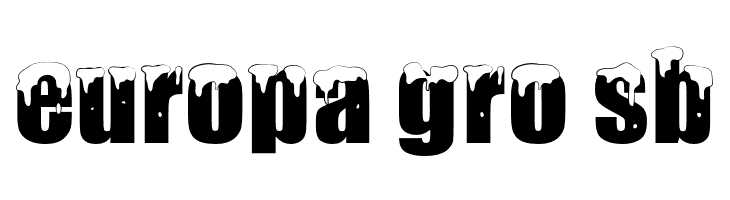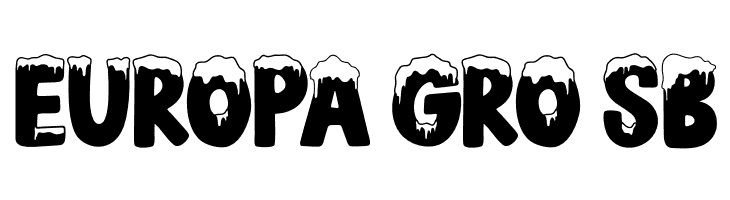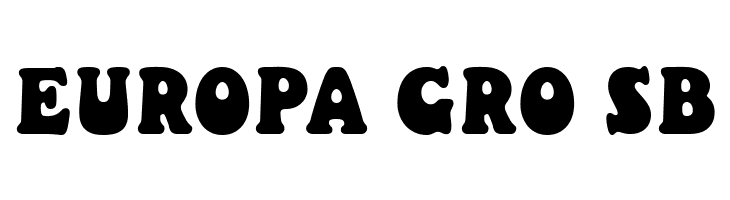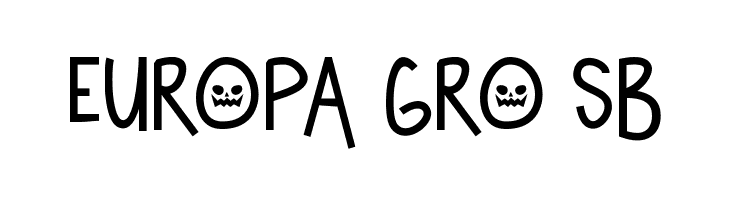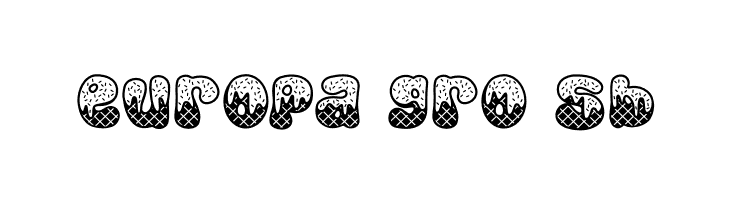
• Winter Path
A playful, bold font with snow-like dots, perfect for festive designs.
• PolarSnow
( Fonts by Display Studio )
A bold, festive font with a snowy, wintry theme.
• SNOW BLUE
( Fonts by girinesia.std )
A bold, decorative font with snow-capped letters for a festive look.
• Super Festival
( Fonts by fsuarez913 )
A bold, playful font with rounded, bubbly characters ideal for fun designs.
• Christmas Pudding
( Fonts by K )
A bold, playful font with thick, rounded strokes and a festive feel.
• Jolly Sweater Bold
A playful, knitted-style font perfect for festive and cozy designs.
• Jolly Sweater Light
A decorative font with a knitted pattern, perfect for festive and cozy designs.
• Halloween Sparkle
( Fonts by Misti's Fonts )
A whimsical, decorative font with curly embellishments and a festive appearance.
• Torment Tonight
( Fonts by Qr Design )
A playful, hand-drawn font with a whimsical and festive touch.
• Cold Snowflake One
( Fonts by PutraCetol Studio )
A bold, decorative font with a snowflake pattern, perfect for festive themes.